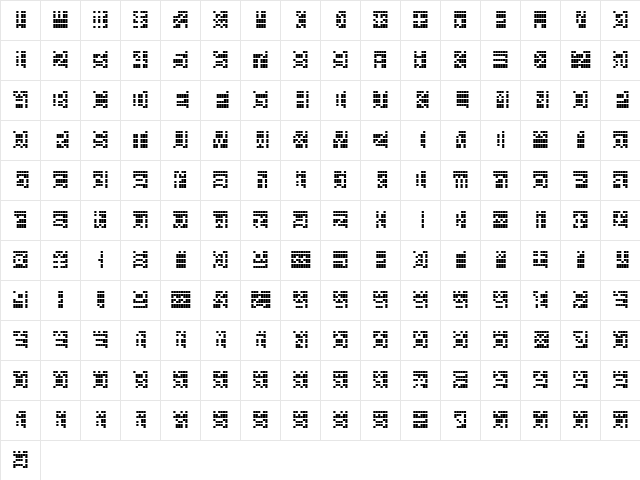
ScreenMatrix Regular Font Preview
ScreenMatrix Regular
ScreenMatrix Regular Font Details
Design Context for ScreenMatrix Typeface
ScreenMatrix offers clean, dependable letterforms without strong stylistic allegiance, making it a practical choice for designers who need flexibility.